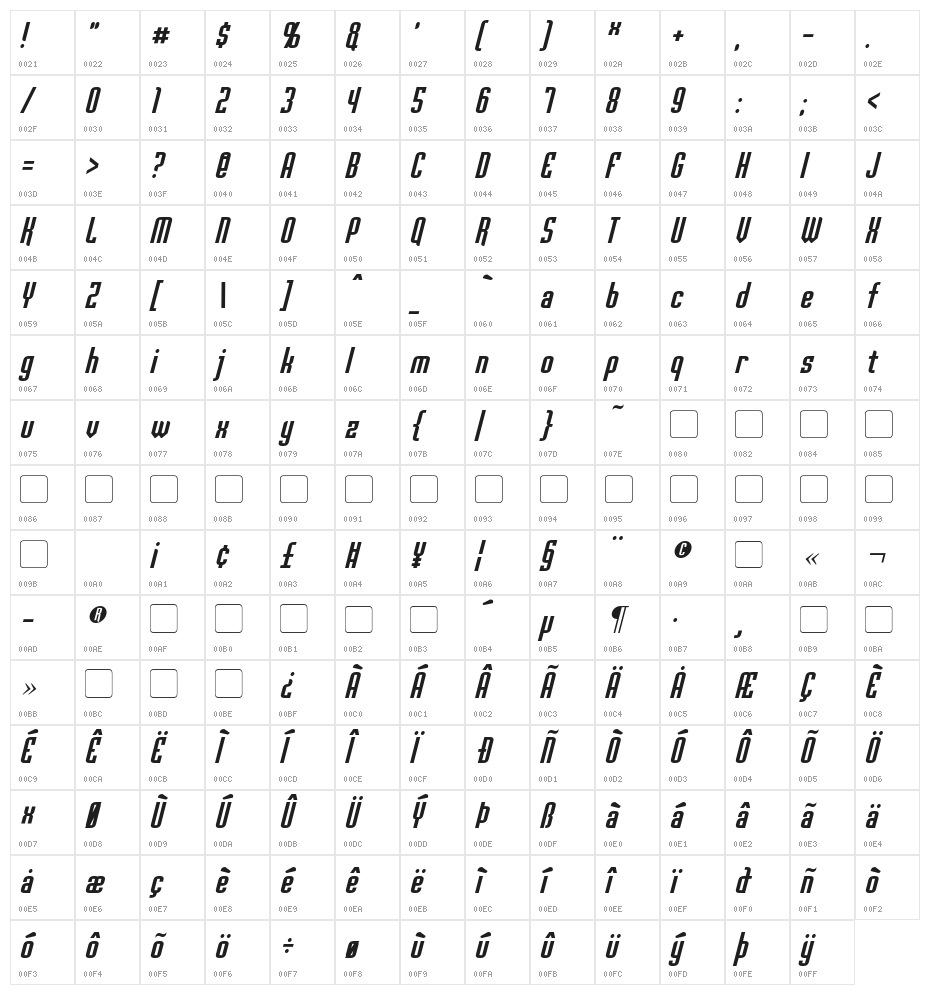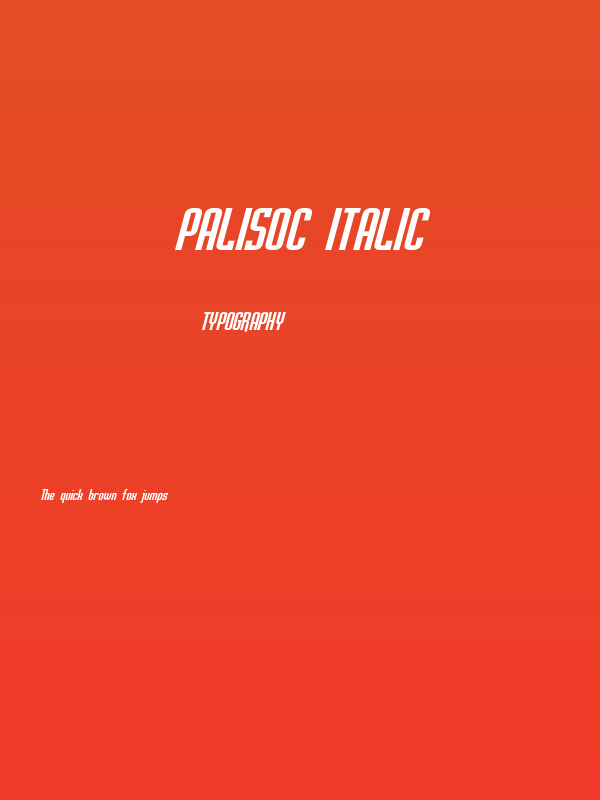
Palisoc Italic Font
Palisoc Italic Description
This font features a dynamic and modern italic style with a strong geometric influence. The characters are slightly condensed, giving it a sleek and streamlined appearance. The strokes are consistent in weight, providing a uniform look across all characters. The slanted design adds a sense of motion and energy, making it suitable for contemporary and creative projects. The uppercase and lowercase letters maintain a cohesive style, while the numerals and special characters are designed to complement the overall aesthetic. This font is versatile, offering a bold presence without overwhelming the viewer.
| Proposed Projects | Ideal for branding, advertising, posters, and digital media where a modern and energetic look is desired. |